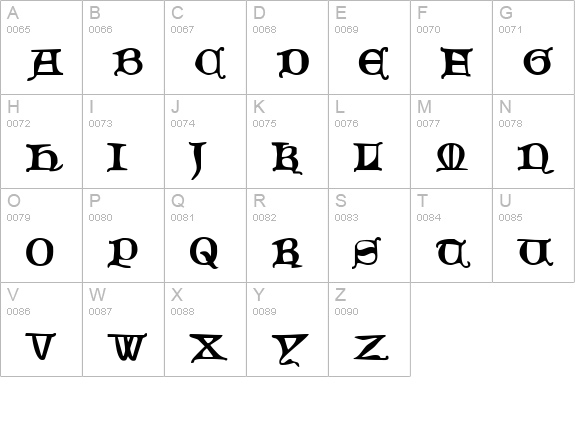
Queen & Country font is a majestic and elegant typeface that exudes sophistication and regality. With its classic serif design and refined details, this font is perfect for projects that require a touch of royalty and grace. Whether you're working on invitations, branding materials, or editorial content, Queen & Country font will add a touch of timeless beauty to your work. The best part? Queen & Country font is available for free download at FontsMarket.com. So you can easily add this exquisite font to your collection without any cost. Don't miss out on the opportunity to elevate your designs with the enchanting charm of Queen & Country font. Download it today and bring a touch of royal elegance to your projects.